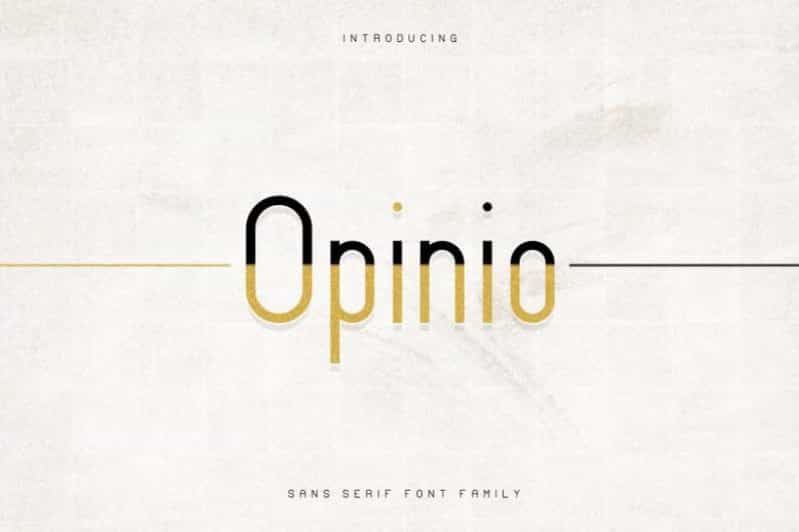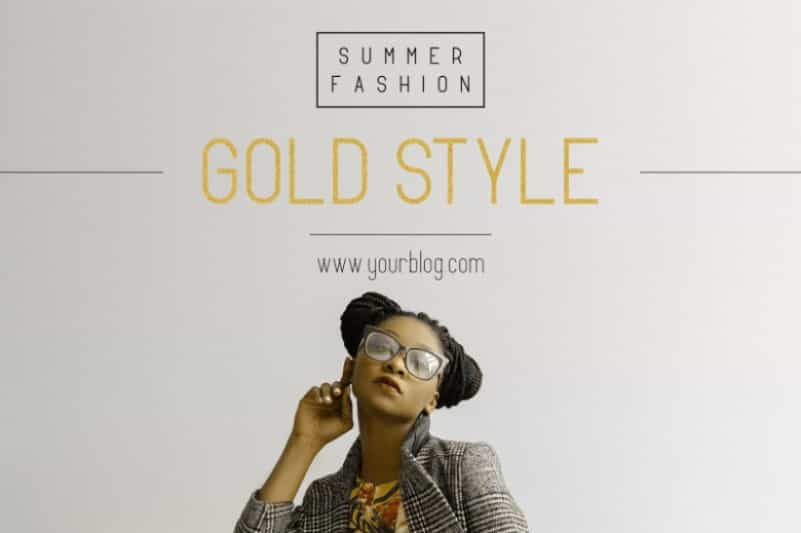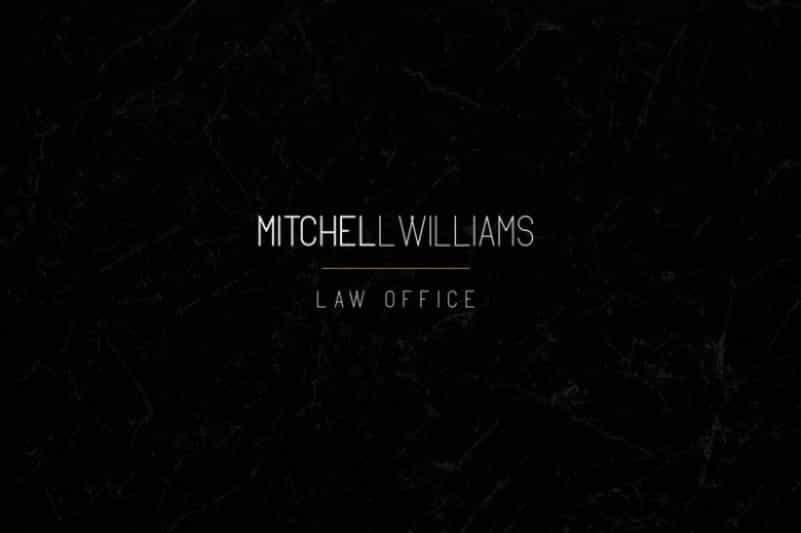
Opinio is a clean, elegant typeface with 6 fonts and multilingual support. It is a very multifunctional font that can be used in both big and small sizes. Opinio is great for branding projects, home-ware designs, product packaging, magazine headers – or as a stylish text overlay to any background image.